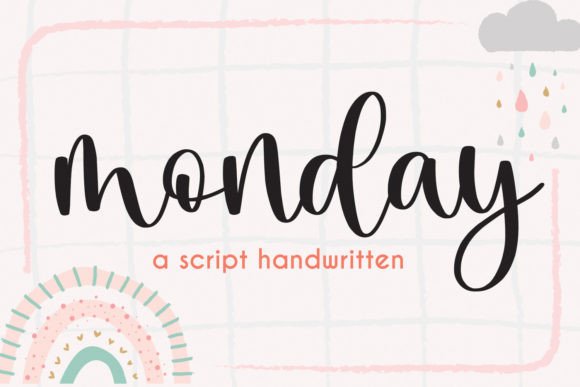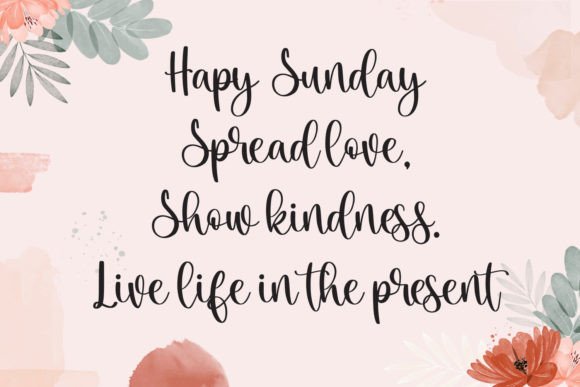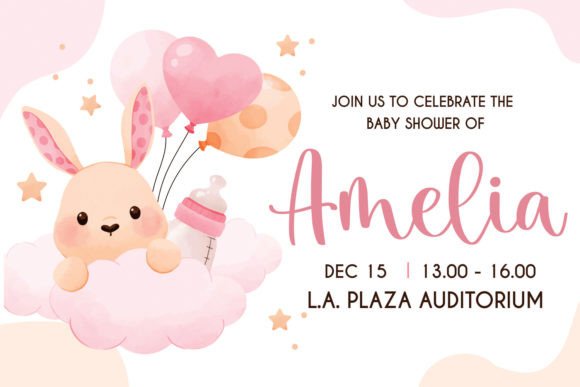
Monday Font: Cute Handwritten Script for Cricut & DIY Projects
About the Monday Font
Add a touch of class to your work with the Monday Font, a truly exceptional typeface. Monday font is a delightful representation of a cute script handwritten style that exudes an irresistible charm. Whether used in invitations, greeting cards, or any design that calls for a touch of adorable elegance, Monday font adds a dose of sweet charisma that’s hard to resist.
Monday Font’s charming script is ideally suited for projects requiring a touch of playful elegance. It works exceptionally well in headlines, short text blocks on invitations, or branding elements for products targeting a young, feminine demographic. Avoid using it for body text or extended paragraphs; its delicate nature makes it less legible at smaller sizes.
Consider pairing Monday Font with a clean sans-serif like Lato for a contemporary feel, or a classic serif such as Garamond for a more traditional yet still balanced look. A simple geometric sans-serif could also provide a striking contrast, creating a sophisticated, modern aesthetic.
The overall personality of Monday Font is best described as friendly and charming, with a subtly elegant feel. It projects a sense of approachability and warmth, making it perfect for brands focused on handmade goods, artisanal products, or businesses promoting a sense of community and personal connection.
Monday Font Usage Examples
Monday Font Example